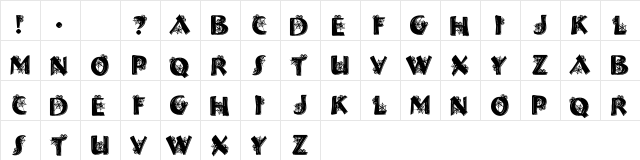
Halloween Spider Regular
Design Context for Halloween Spider Typeface
Halloween Spider is a composed and adaptable typeface that performs quietly and consistently across a wide range of design contexts.